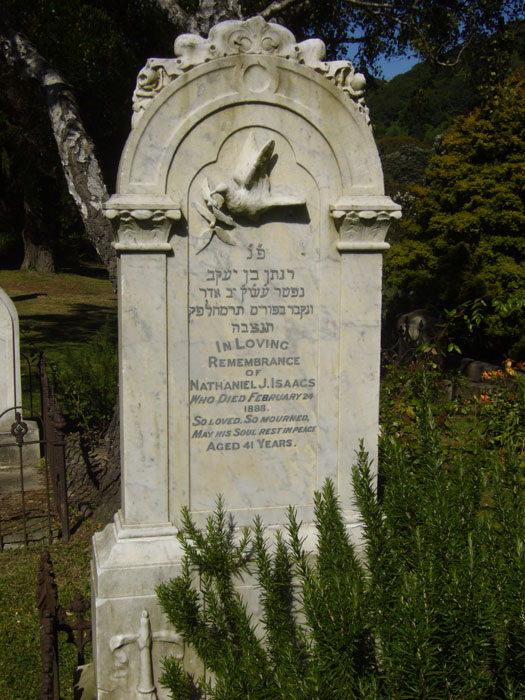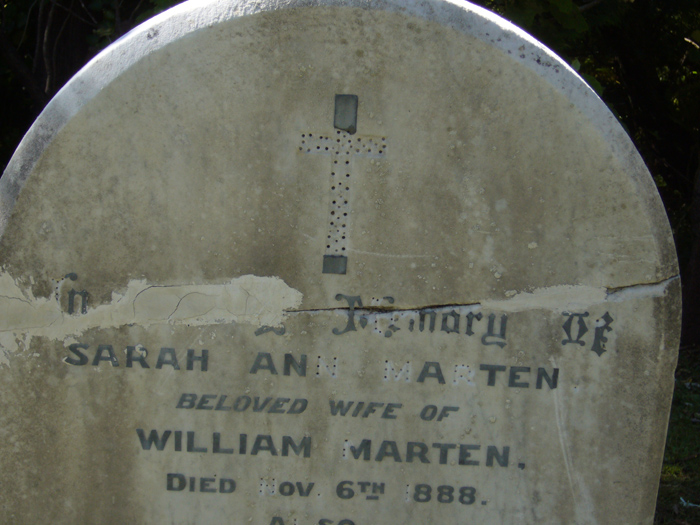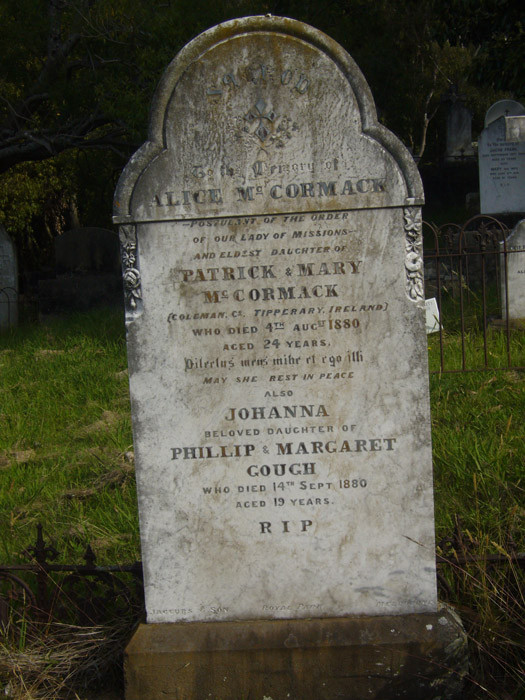
I've never scene this before.
Lead Lettering
When I went with Dave and John and Jeff and other letterheads to Scotland we walked through graveyards and I saw MANY ancient engraved head stones
that had hand chiseled letters that were studded with deep and numerous holes. My brain could go no further until I could discover why these carved letters had holes.
(It's sort of a curse when your brain veers off and you have to tag along until it's content and ceased to itch) I had to look through quite a few badly weathered markers before I found one that still had some metal residue. I did not want to deface the stone by picking out the sampling of metal. I imagined it was bronze as it was of a gray/green patina
and I imagined that the low temperature metal had been molten and poured into the letter forms. But your video shows it was much more laborious than I thought.
I have to wonder though, since SO MANY of these lead filled stones are missing their lead, did it just oxidize away in several hundred years, or were fires built around the markers to melt out the lead and then used in firearms for battles, or sold as stolen metal.
In my wanderings I stumbled upon the marker of the Author of "WEE WILLIE WINKY"
I would say gold leafing is far less labor than lead packin".
Re: Lead Lettering
Wow, what a find! I'd like to see his mallet a bit better, but the video makes the whole process quite clear. Here is a letter i wrote after spending Christmas 2008 in New Zealand, and some photos. Unlike what Pat saw, most of the lead stones I saw were in very good shape and I had to search for missing letters to get an idea of how they were held in. And then in around 1930 the lead just stopped, and you just had carved stones. So it is really great to see that the technique hasn't gone extinct.
Ah, but I saved the best for last. Where can you see a lot of true hand lettering in a small area? Until recently, a shopping area would do quite nicely, but the computer has changed all. So off to the cemetery, where, again until recently, all was done by hand - and in this place the old lettering doesn't get scraped off when a new tenant arrives. Granted, the styles are not usually too flashy, and the colors - well, there usually aren't any. But you can often see local styles of lettering or layout, like you'd see in small town signs awhile ago because there were only a few people doing the work and they often learned from each other. And anyway, it's quiet and peaceful.
In Wellington there is an old cemetery that they ran a freeway through, so they moved a bunch of graves and stones. And a major footpath runs through the remaining graveyard, with lots of joggers and downtown workers going through every day. So that may explain why many stones were so clean and legible. BUT the other reason is the technique used: the letters are filled with lead, which doesn't age much. That method was used in (to my quick survey) about 80% of the stones, from the oldest there (1850s) to about 1930, all denominations and all degrees of fancy.
(Example 1)
Very clean and legible, even if it has been washed recently. The metal is just barely proud of the surface, not like a raised or cast letter at all. So I looked and looked for an example that would explain how it was done, and was again surprised at how few were in bad repair. But here is one which shows clearly missing letters and letter parts
(Example 2)
The letters are carved in, but not very deeply. Holes are drilled in. Then what - molten lead poured over while it is flat on the bench? It'd be hard to add names in the field, and you usually have to be able to do that. But there were too many different letters, too many sizes for them to be pre-cast letters.
Examples 2 & 3
Aaargh. Here's the 3rd stone; fairly complex.
- This stone was in New Zealand, but signed by a maker in Australia